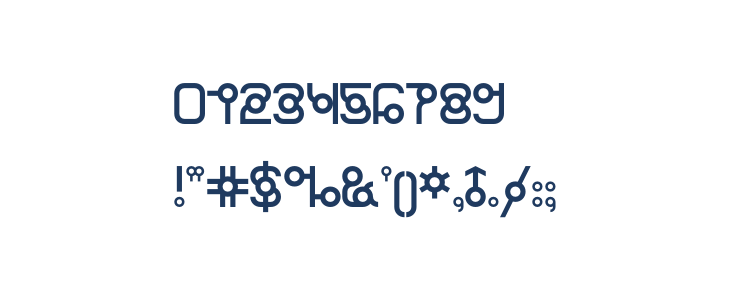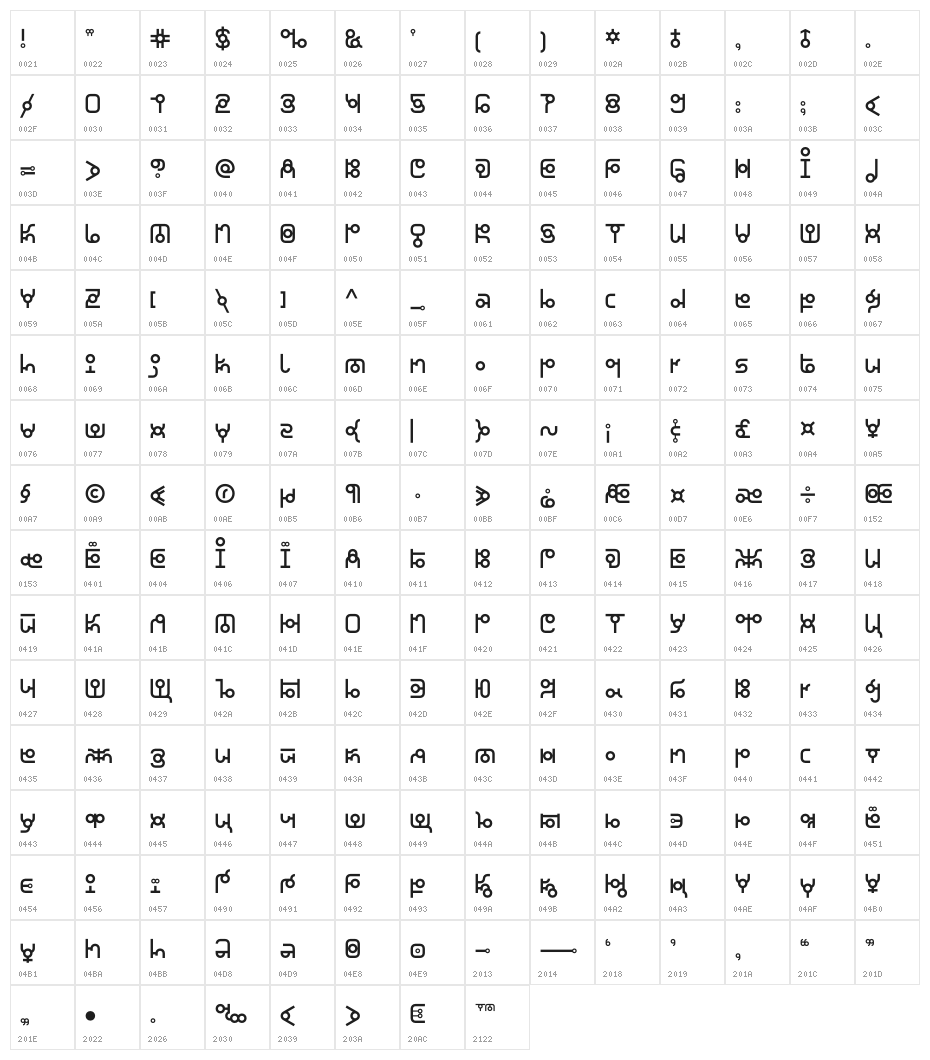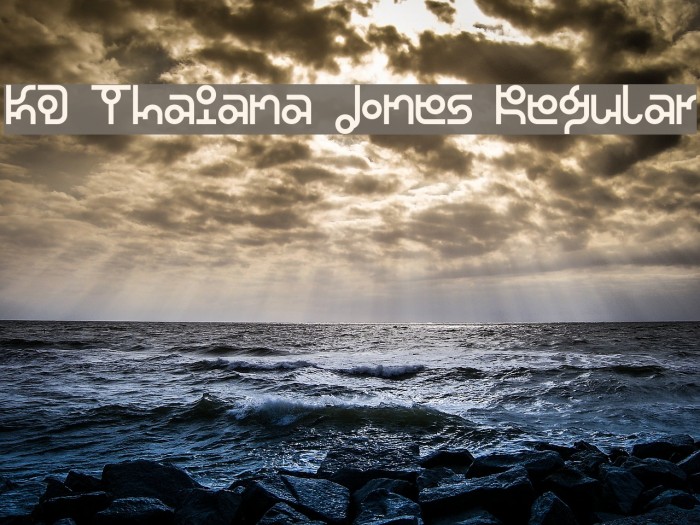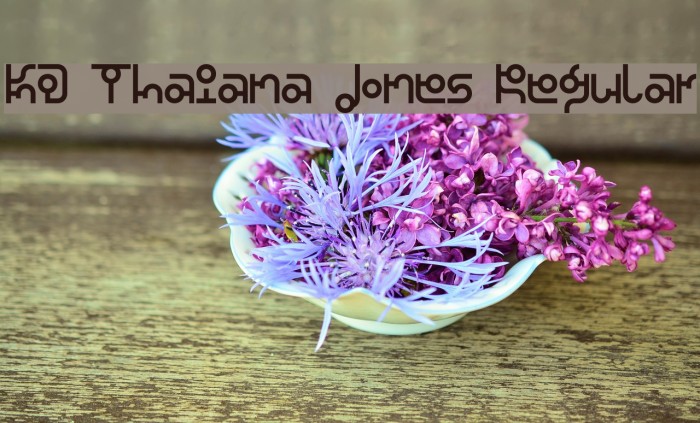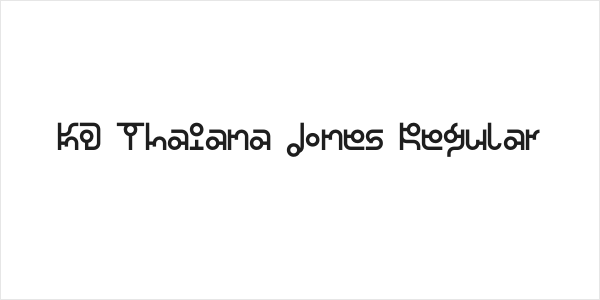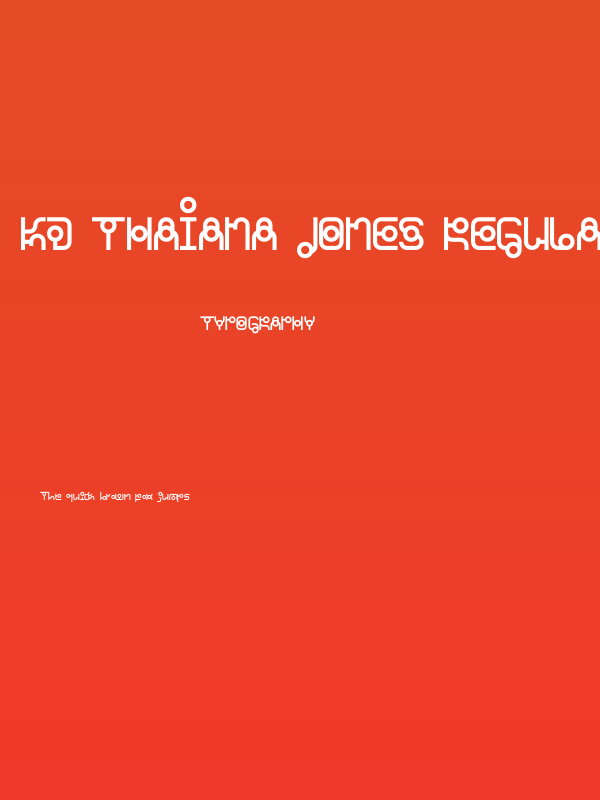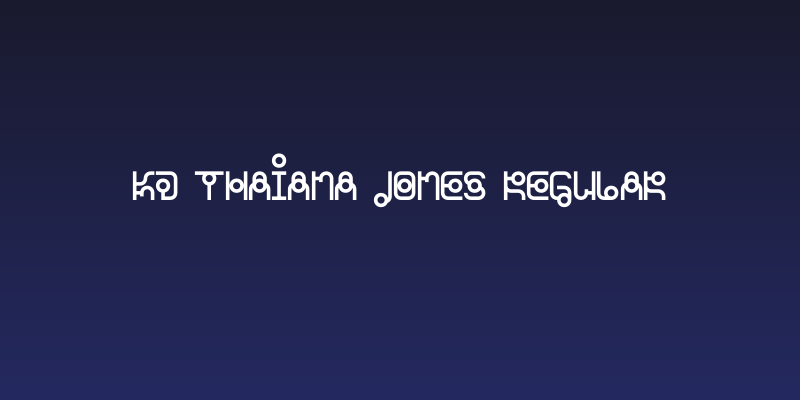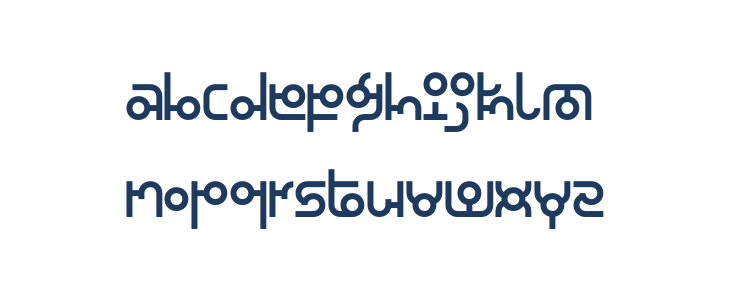
KD Thaiana Jones Regular Font
KD Thaiana Jones Regular Description
This font features a unique and decorative style, characterized by its bold and geometric shapes. The letters are crafted with a consistent stroke width, giving them a uniform appearance. The design incorporates circular and angular elements, creating a futuristic and abstract look. The characters are evenly spaced, ensuring readability while maintaining an artistic flair. This font stands out with its distinctive and playful aesthetic, making it suitable for creative and modern design projects.
| Proposed Projects | Ideal for branding, posters, album covers, and any project requiring a modern and artistic touch. |